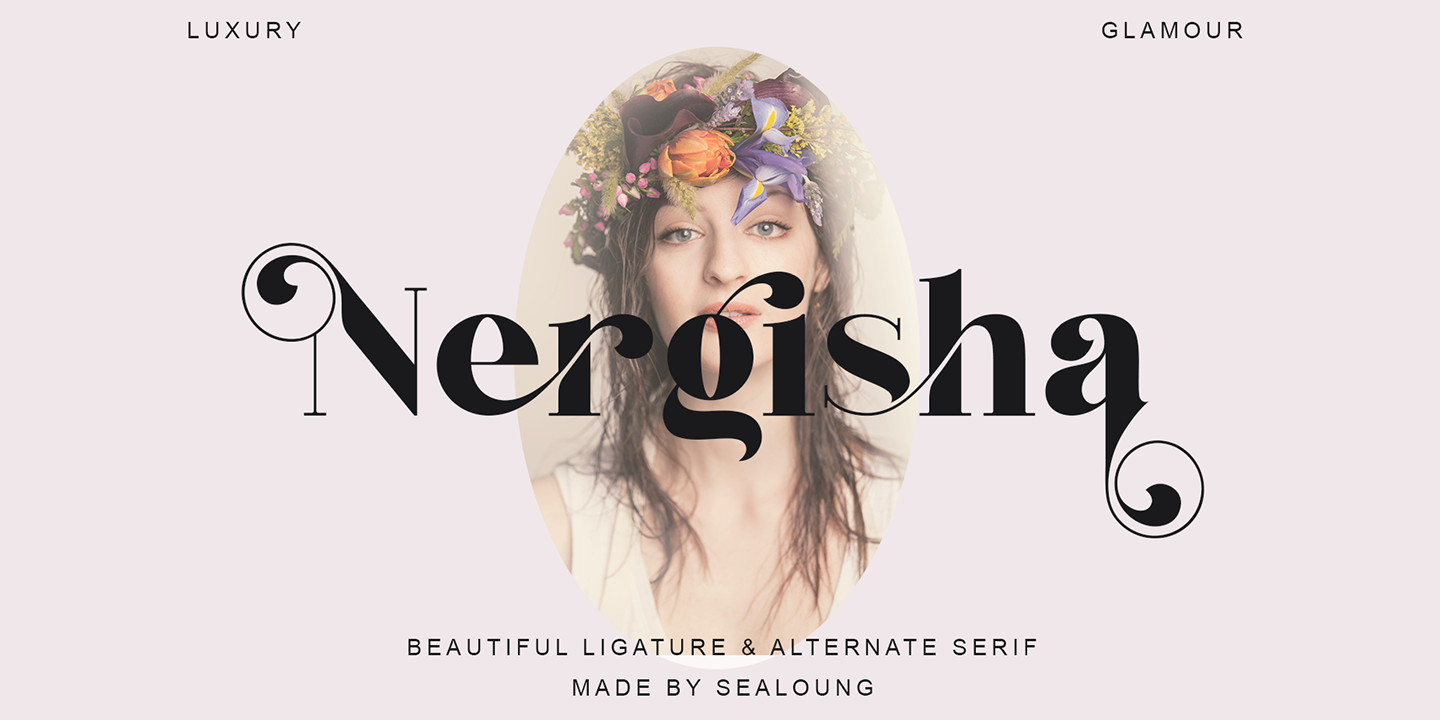
The Nergisha Font is perfect for exotic travel branding, international cuisine logos, cultural art galleries, ethnic fashion boutiques, world music festival posters, multicultural wedding invitations, artisan craft labels, global marketplace signage, and international lifestyle magazines.
What makes the Nergisha Font so exciting is its mysterious exotic charm that instantly evokes distant lands and rich cultural traditions from around the world. This captivating typeface embodies the allure of international adventure and the sophisticated elegance of global cultural fusion, creating an immediate sense of wanderlust and cultural curiosity. The font's distinctive character communicates the authenticity and worldly sophistication that businesses serving international markets need to attract customers seeking genuine exotic experiences and global cultural connections.
The Nergisha Font family includes Regular weight with complete uppercase and lowercase alphabets, comprehensive numerical sets, essential punctuation marks, and international decorative elements that maintain the exotic aesthetic throughout your global cultural design projects.
International businesses and cultural organizations consistently select Nergisha Font Free Download for projects that require authentic exotic appeal and sophisticated global presentation. This exceptional typeface excels in environments where creating an atmosphere of international intrigue and cultural refinement is crucial for attracting worldly customers and establishing premium brand positioning. The font's exotic character helps communicate the quality and authenticity that discerning international audiences seek when exploring global cultural experiences.
The distinctive qualities of Nergisha Font reflect the rich tapestry of world cultures where ancient traditions meet contemporary global connectivity. Each character demonstrates the careful balance between traditional cultural elements and modern international appeal that characterizes successful global branding. The font's proportions and spacing create perfect harmony between exotic mystique and practical readability that modern international businesses require for effective cross-cultural communication.
Contemporary global enterprises appreciate how Nergisha Font communicates cultural authenticity and international sophistication. Whether designing promotional materials for exotic travel destinations, creating branding for international fusion restaurants, or developing marketing for global cultural events, this font delivers the genuine character that distinguishes authentic international experiences from generic tourist attractions. The typeface works exceptionally well for businesses emphasizing cultural immersion, authentic traditions, and sophisticated global perspectives.
The versatility of Nergisha Font extends across multiple international applications and global marketing initiatives. Fashion designers utilize its exotic character for collections inspired by world cultures and international textile traditions. Luxury hotels choose it to communicate their commitment to providing authentic cultural experiences and sophisticated international hospitality. Art galleries rely on its refined appearance to promote exhibitions featuring global artists and international cultural movements.
Digital global platforms benefit from Nergisha Font's optimized performance across various international markets and multilingual applications. The font maintains its exotic character whether displayed on international websites, mobile travel apps, or digital cultural publications. This technical adaptability ensures consistent brand presentation across all global communication channels and diverse cultural contexts.
The psychological impact of Nergisha Font resonates with audiences who seek authentic international experiences and appreciate global cultural diversity. The typeface serves as a visual passport to exotic destinations and sophisticated cultural encounters that helps international businesses build emotional connections with adventurous travelers and culturally curious consumers. This association with global exploration and cultural refinement makes it invaluable for establishing prestigious international brand identities.
Global marketing specialists and international design professionals recognize Nergisha Font as an effective tool for authentic cross-cultural branding. The font captures the essence of international sophistication while making exotic design accessible to contemporary businesses who want to communicate their genuine connection to global cultures and international excellence in today's interconnected marketplace.